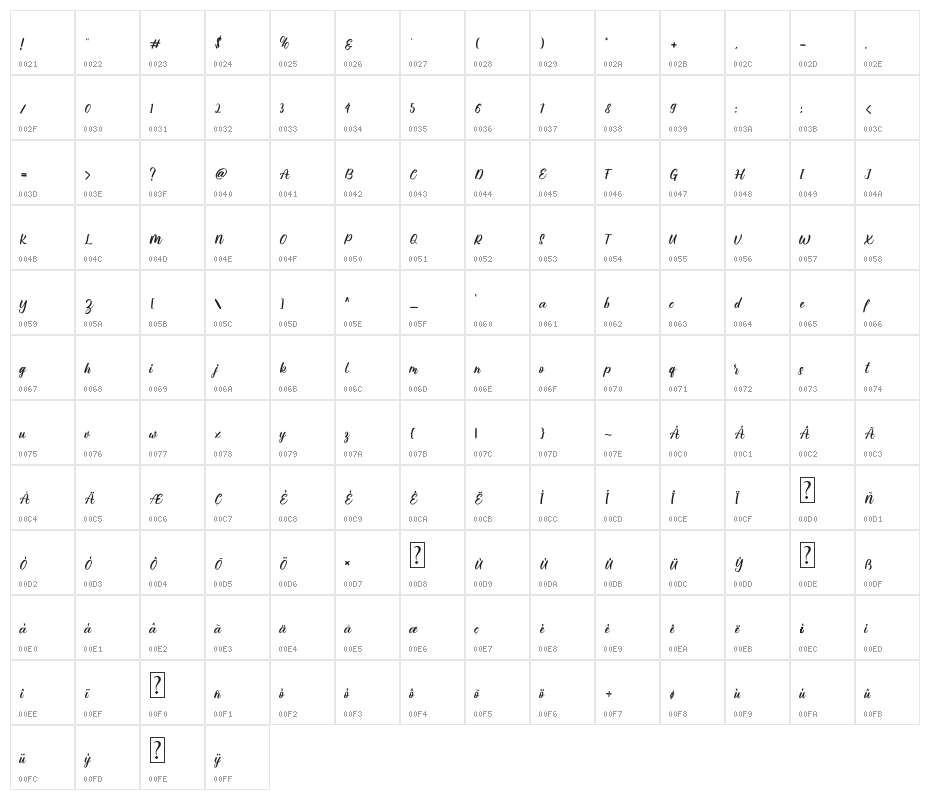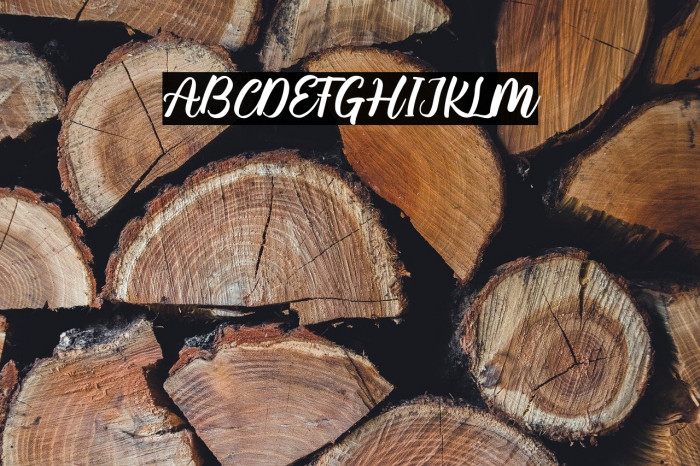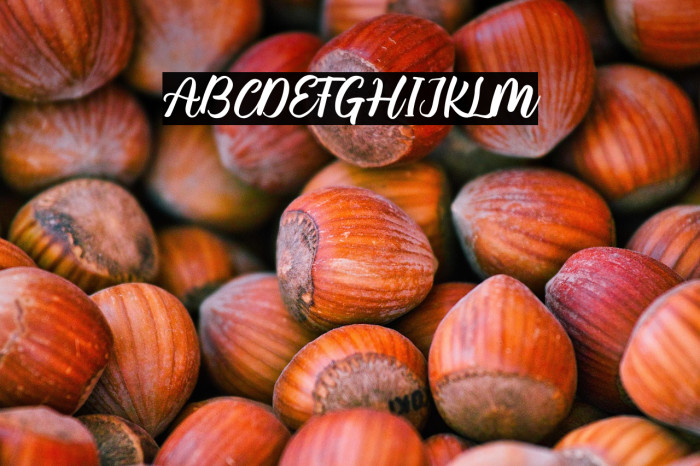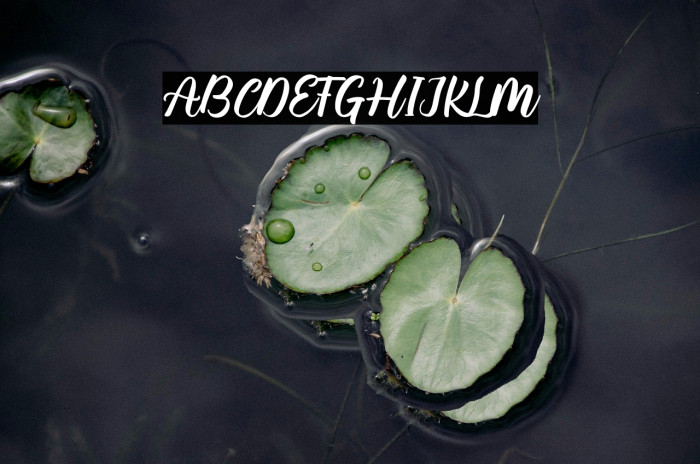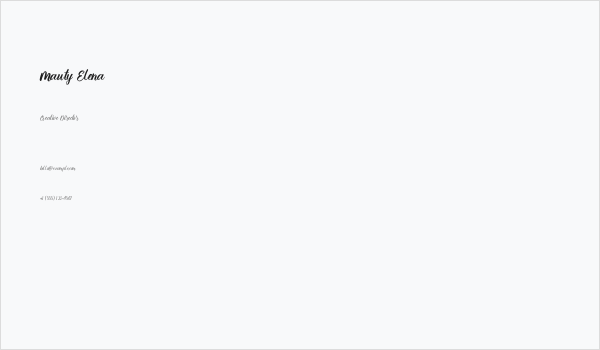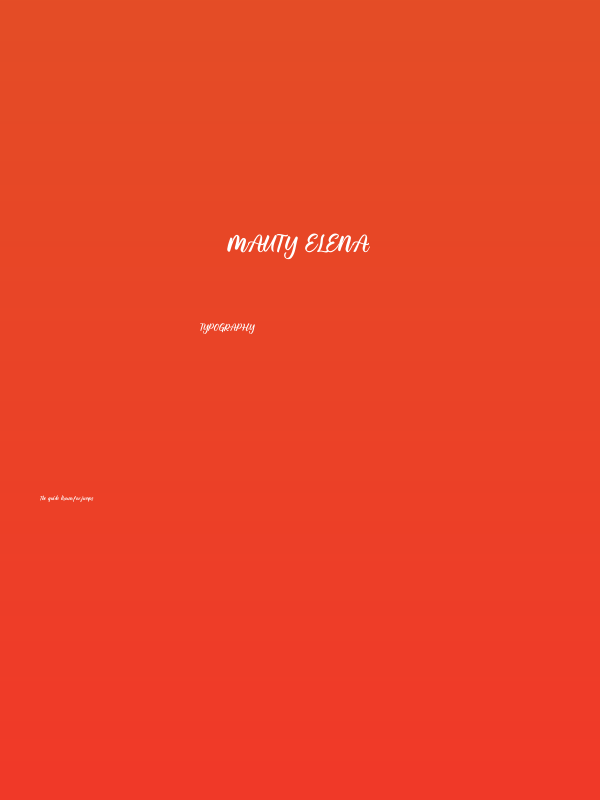
Mauty Elena Font
Mauty Elena Description
This font exudes a sense of elegance and fluidity, characterized by its cursive script style. The letters are interconnected, creating a seamless flow that is both sophisticated and approachable. The uppercase letters stand tall with a slight slant, while the lowercase letters maintain a consistent baseline, enhancing readability. The numerals are distinct yet harmonize well with the overall script style. Special characters are crafted with the same attention to detail, ensuring they blend seamlessly with the text. This font's design is perfect for adding a personal touch to any project, making it ideal for invitations, branding, and creative designs.
| Use Case | Logos, Invitations, Creative designs |
| Proposed Projects | Ideal for wedding invitations, branding, greeting cards, and creative design projects. |